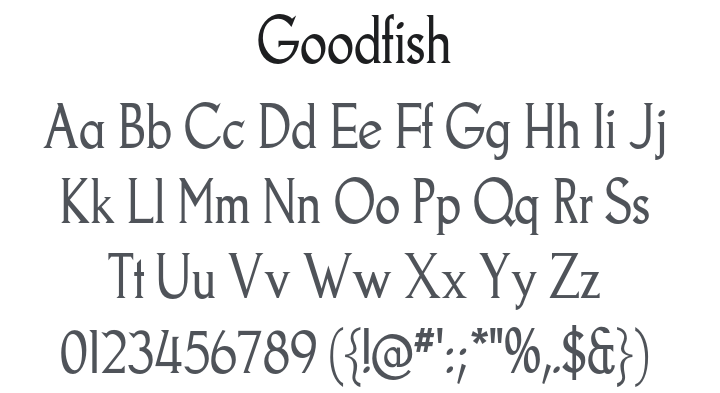
Goodfish Font Family
About Goodfish
Goodfish is a traditional sign painter-style Latin serif typeface with warm, comforting proportions and classic letterforms that feel hand-crafted and sincere. Its timeless character avoids fussiness while retaining genuine charm. Available in Regular, Italic, Bold, and Bold Italic. Great for restaurant signage, artisan branding, book covers, editorial headlines, and any design needing wholesome, trustworthy personality.